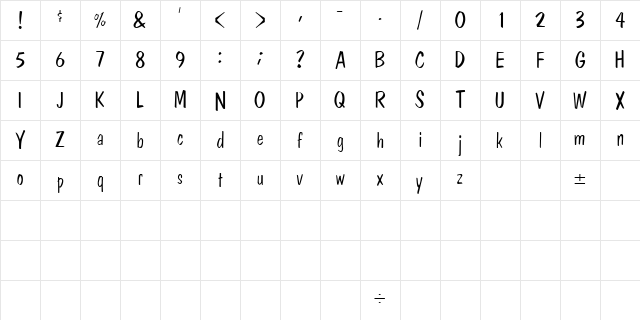
BangaLightSSK Regular
BangaLightSSK Family
Design Context for BangaLightSSK
BangaLightSSK is a composed and adaptable typeface that performs quietly and consistently across a wide range of design contexts. Its slender proportions lend an understated elegance to any composition.